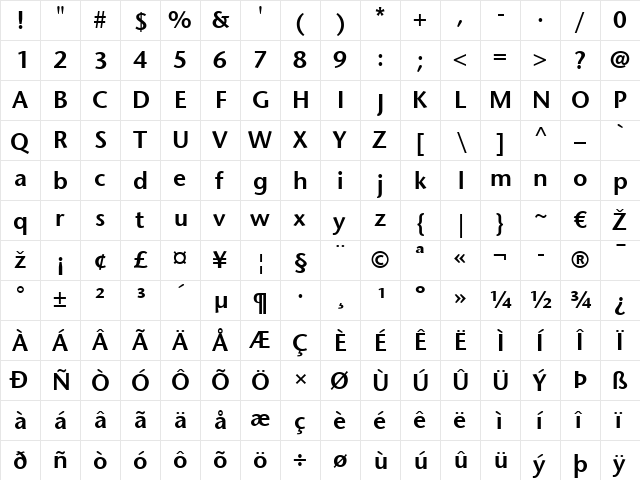
StoneSans LT Bold
Design Context for StoneSans LT Typeface
StoneSans LT offers clean, dependable letterforms without strong stylistic allegiance, making it a practical choice for designers who need flexibility. Its bold stroke weight gives it real presence on the page.